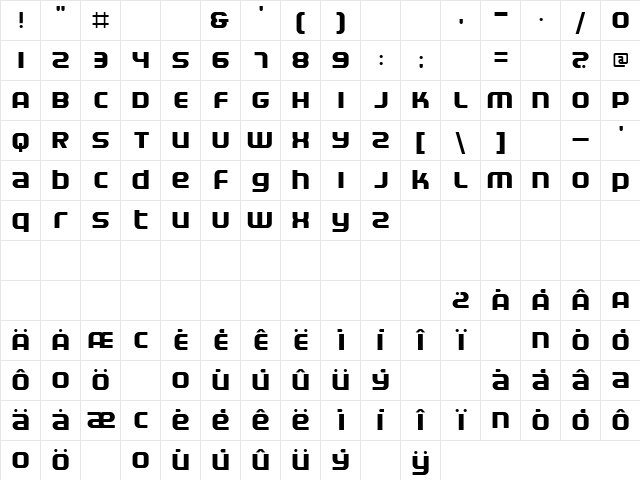
Electrofied Regular
Design Context for Electrofied Typeface
Electrofied is a composed and adaptable typeface that performs quietly and consistently across a wide range of design contexts.